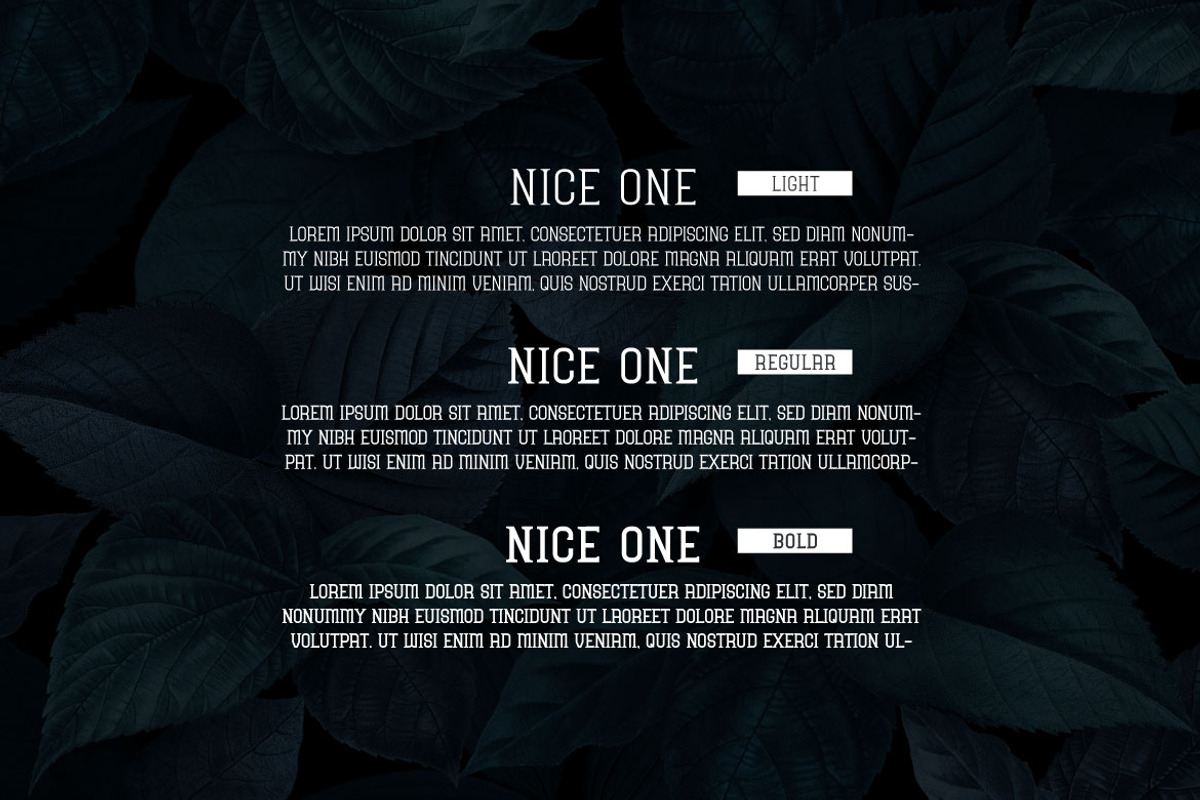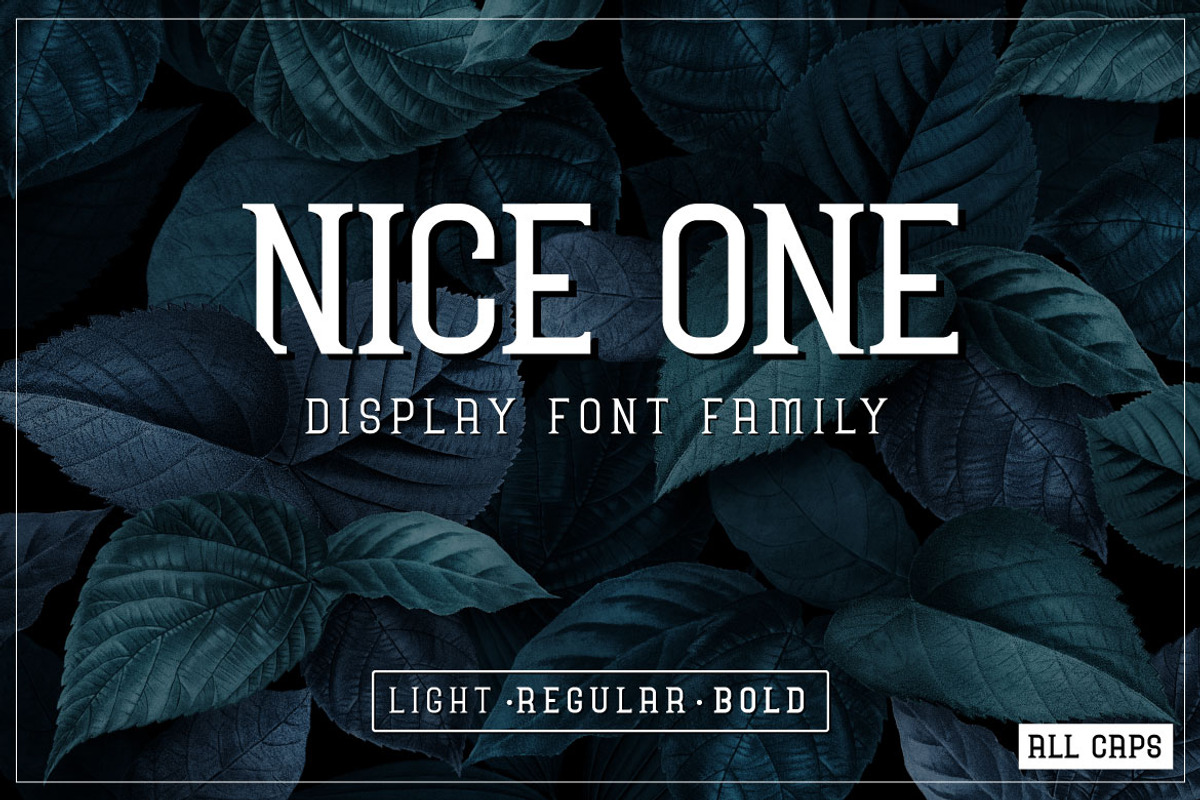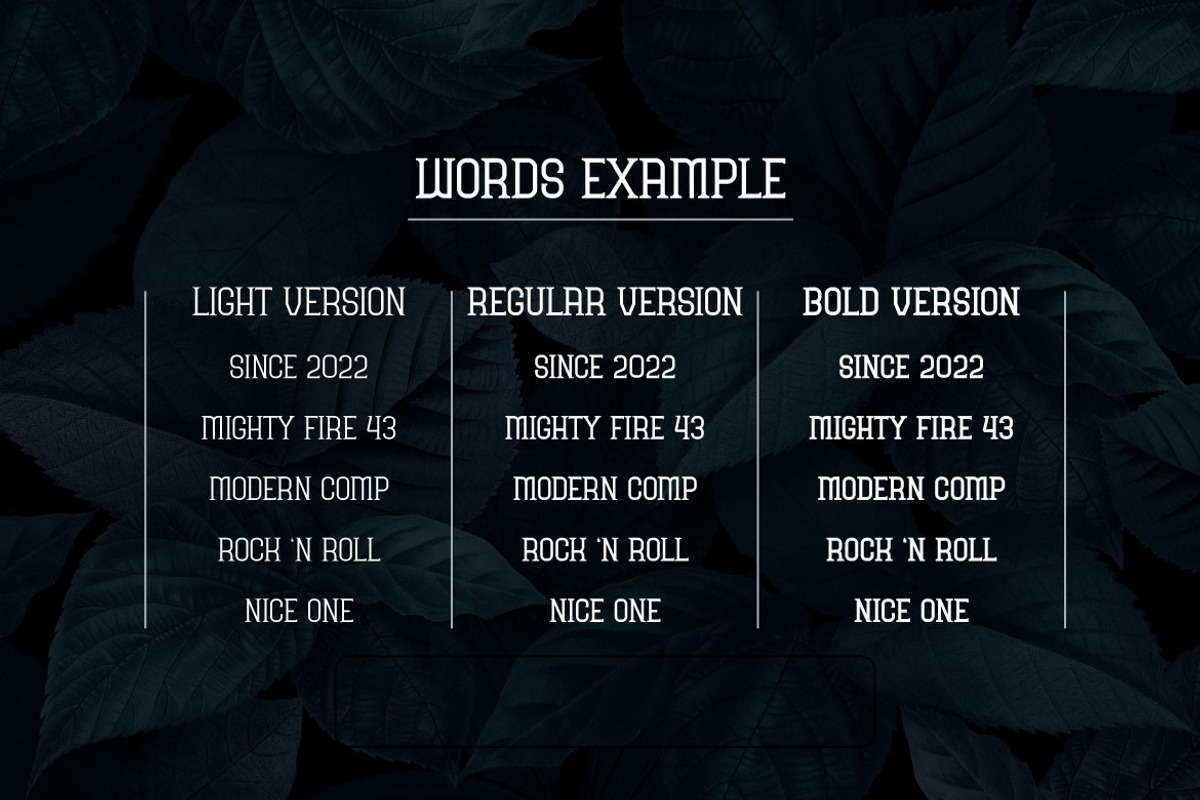
Nice One - Display Font
Looking for a clean, neat and modern font? We're proudly present to you NICE ONE You can use this font in poster, cover book, title, headline, card, logo, magazine, banner, or even large-scale artwork. NICE ONE has light, regular and bold versions.
NICE ONE makes your artwork become the nice one! :)